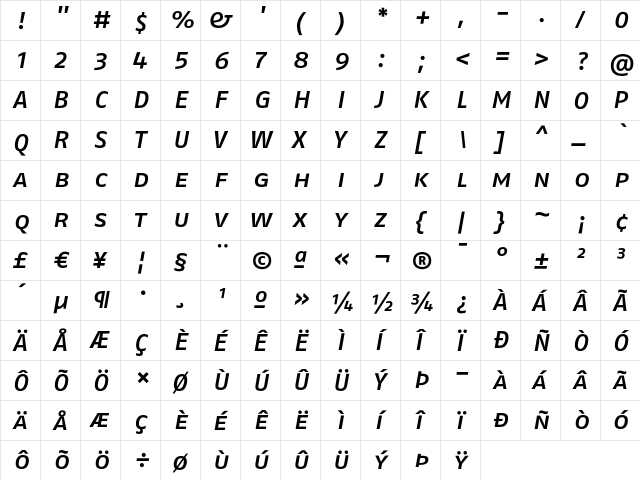
FagoExLf MediumItalicCaps
Design Context for FagoExLf Typeface
FagoExLf offers clean, dependable letterforms without strong stylistic allegiance, making it a practical choice for designers who need flexibility. The dynamic lean of this cut emphasises speed and emphasis in any layout.
Pro Tip: Try FagoExLf for annotation and caption copy alongside an upright companion — the contrast in angle creates a dynamic but ordered typographic system.